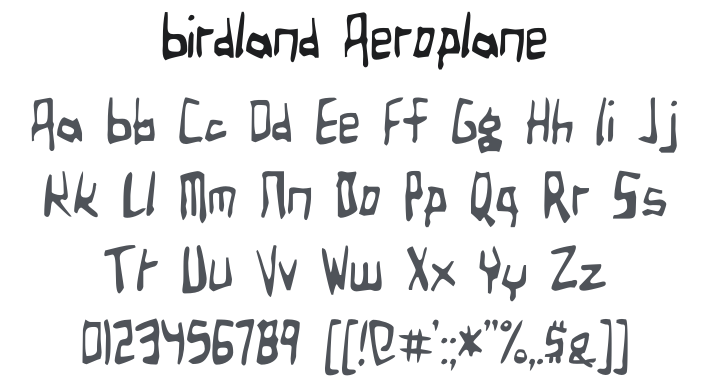
Birdland Aeroplane Font Family
About Birdland Aeroplane
Birdland Aeroplane is a hasty, maniacal marker scrawl — loose, erratic handwriting that looks like it was dashed off in a frenzy with a thick felt-tip pen. Available in Regular and Bold, its raw energy makes it feel spontaneous and unhinged. Great for comic dialogue, punk zines, graffiti-style posters, sketchbook aesthetics, and any design needing wild, handmade urgency.